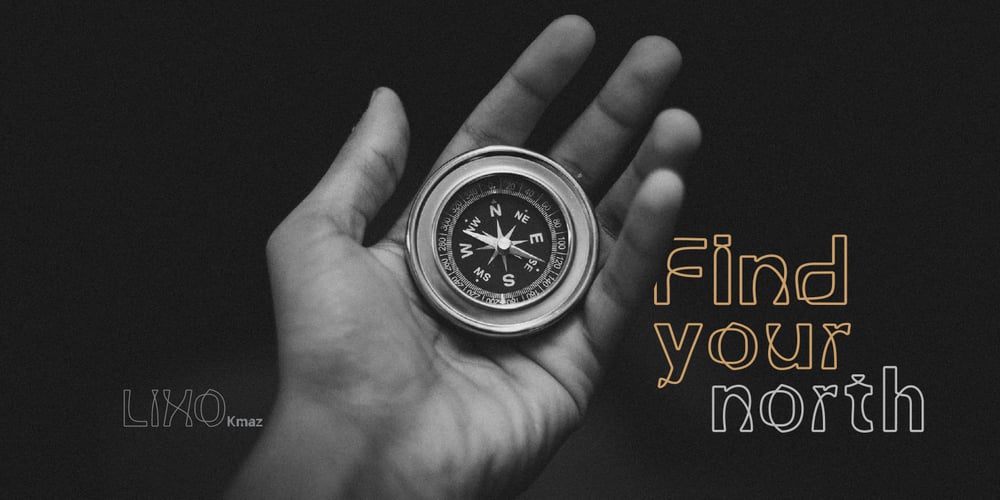
Lino
Lino font
Lino Font Family was designed by Khalid Al-Mazrouei and published by Kmaz. Lino contains 5 styles and family package options. Lino is a unique typeface with elegant modern edge, designed by Khalid Al-Mazrouei and published by Kmaz. Lino packs a complete set of uppercase and lowercase letters, numbers and punctuation, it comes in 5 weights: Regular, Thin, Extra Thin, Bold and Solid.